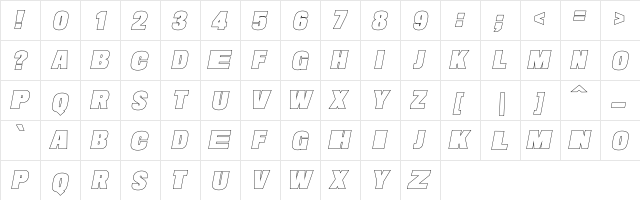
New Machines Outline DEMO Regular
Design Context for New Machines Outline DEMO Typeface
New Machines Outline DEMO is built around its visual character rather than neutral utility — its distinctive forms are designed to make an impression at display sizes.
Font Pairing: Pair with a clean neutral sans-serif for body copy to let New Machines Outline DEMO's character lead without overwhelming the composition.
Pro Tip: Treat New Machines Outline DEMO as the centrepiece of your typographic hierarchy. One strong heading set in a decorative face can carry an entire layout.